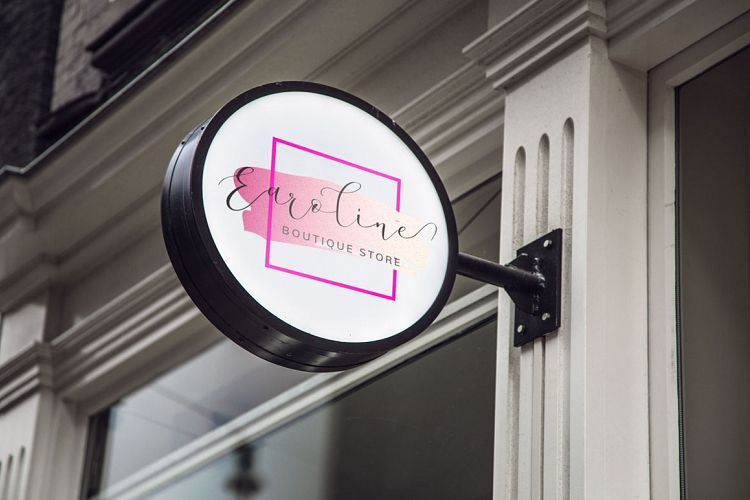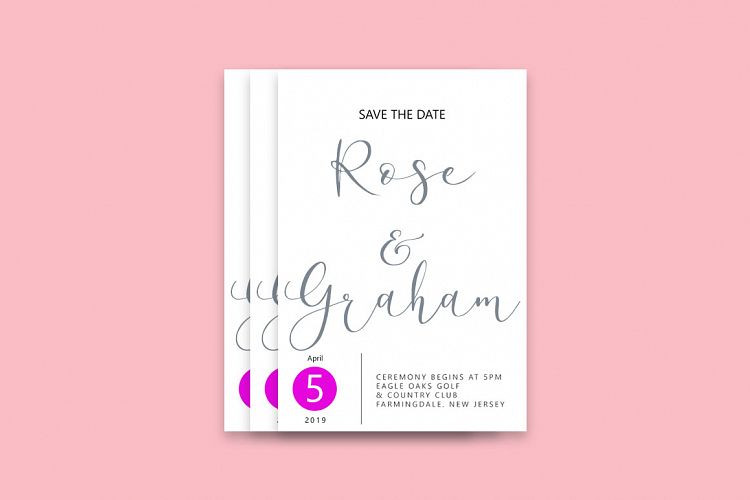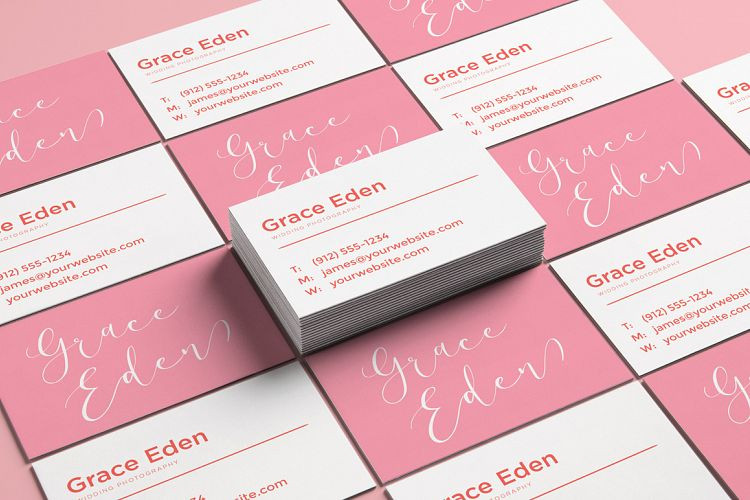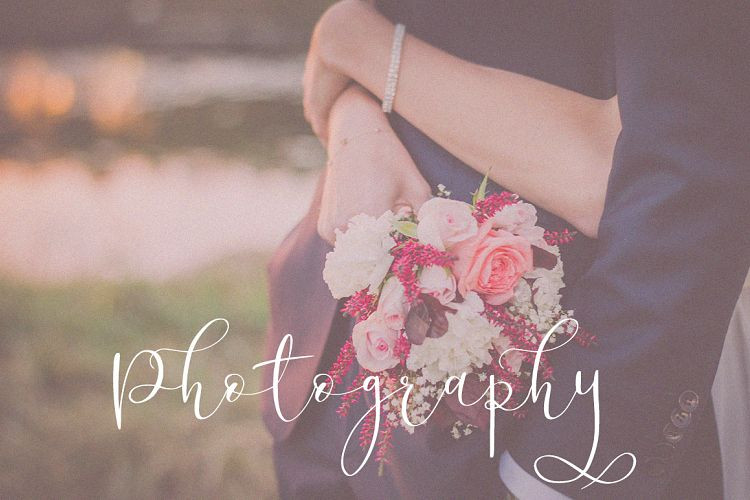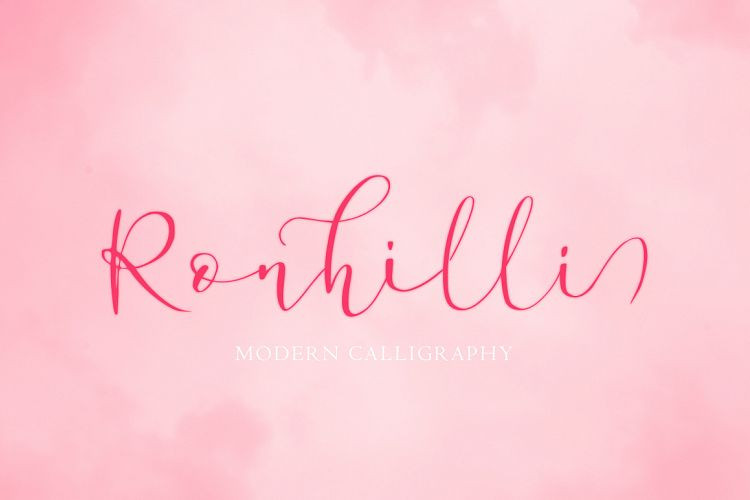
Ronhilli Script – Demo Font
Thank you for looking! This is a new modern calligraphy font with the current handwriting style. Introducing Ronhilli Font. It is design and shared by JunCreative. It is perfect to you up coming projects. such as modern invitation design, branding stationery design, wedding, birthday, etc and any projects.